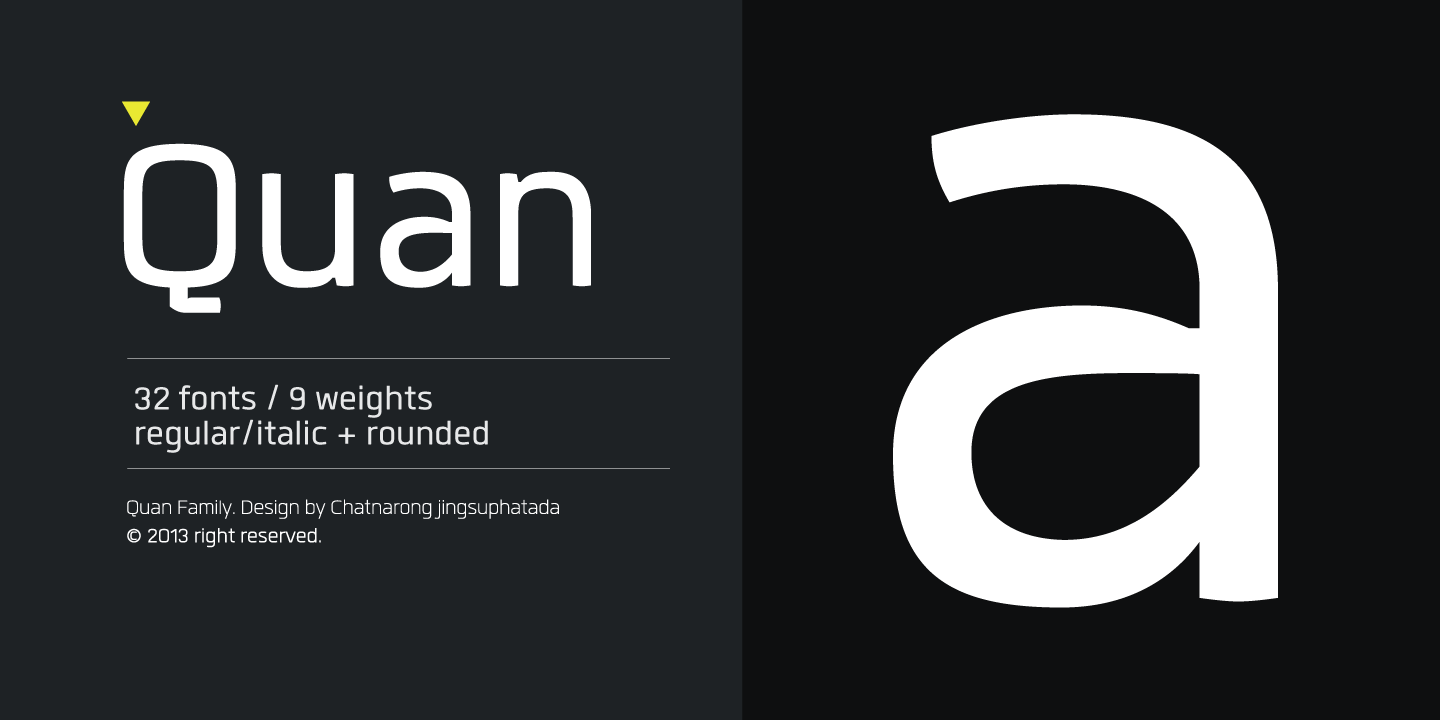
Quan Font is ideal for zen meditation center branding, mindfulness app interfaces, holistic wellness materials, spiritual retreat graphics, yoga studio signage, eastern philosophy publications, balanced lifestyle marketing, peaceful sanctuary designs, contemplative art projects, and serene therapeutic environments. This tranquil typeface excels in applications where inner peace and spiritual balance need to be communicated with harmonious simplicity and contemplative grace that embodies the essence of mindful living and centered awareness.
What makes Quan Font exciting is its extraordinary ability to convey profound tranquility and spiritual balance through its harmoniously designed letterforms that seem to radiate the calm energy of deep meditation and centered awareness. The font embodies the essence of mindful presence with its balanced construction and peaceful proportions that suggest the gentle flow of breath and the quiet strength found in stillness. Its carefully calibrated character details and serene personality create an atmosphere of inner harmony that resonates with practitioners of mindfulness, meditation, and anyone seeking authentic peace in an increasingly chaotic world.
The Quan Font family typically includes Light, Regular, and Medium weights, each maintaining the signature peaceful characteristics and contemplative balance. Some versions offer subtle Italic variants that enhance the flowing tranquility, minimal decorative elements that amplify the zen aesthetic, and extended character sets with eastern symbols and philosophical notation. The family may also include ultra-light weights for ethereal applications and specialized cuts designed for meditation and wellness communications requiring maximum serenity and visual calm.
Whether you're creating wellness brand identities, meditation resources, or spiritual communication materials, Quan Font Free Download delivers the perfect zen balance your mindfulness-focused projects deserve. Its contemplative character and peaceful styling make it an invaluable choice for wellness centers, meditation teachers, and holistic practitioners working in mindfulness education, spiritual guidance, and therapeutic healing sectors where authentic tranquility and centered presence are essential for creating sacred spaces that support inner transformation and peaceful living.